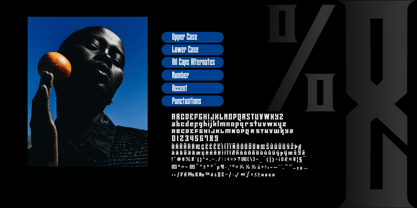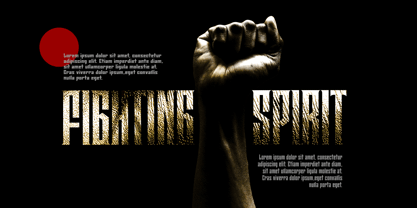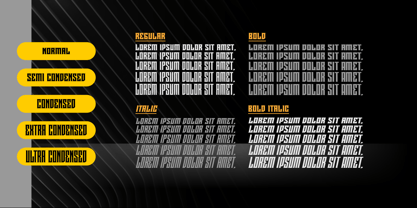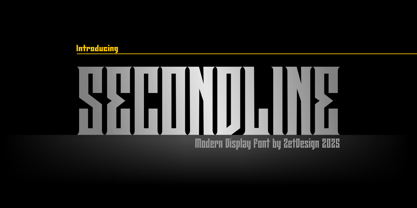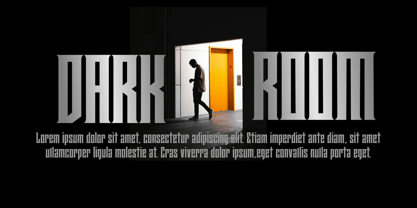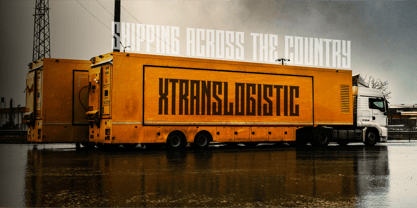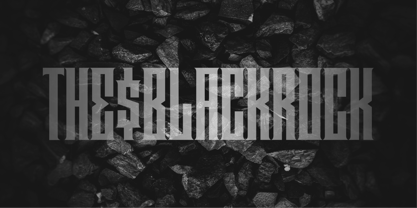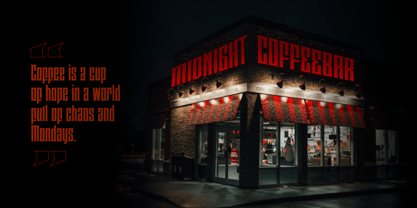
Secondline
von ZetDesign
Die Schriftfamilie Secondline wurde von Ahmad Zulfikar Ali entworfen und von ZetDesign veröffentlicht. Secondline enthält 20 Stile und Familienpaketoptionen.
Introducing Secondline — a bold, modern display font designed to captivate attention and deliver a strong, commanding visual presence. Created by ZetDesign in 2025, this typeface combines futuristic aesthetics with an industrial edge, making it a perfect choice for projects that require intensity and style.
With its tall, narrow letterforms and sharp, angular cuts, Secondline evokes a sense of strength, sophistication, and confidence. The font’s striking geometry and symmetrical shapes create an almost architectural feel, while subtle curves and pointed edges provide a dynamic contrast.
Secondline is meticulously designed for headlines, posters, logos, album covers, sports branding, tech-based designs, and futuristic themes. Its distinctive appearance makes every word stand out, leaving a lasting impression on viewers. Whether used in digital or print media, this font radiates boldness and energy, ensuring your message is not just seen, but remembered.
ZetDesign is an Indonesia-based type foundry operated and owned by Ahmad Zulfikar Ali. starting from an interest in art, Zulfikar has pursued several fields. painting, drawing, screen printing, to digital printing. His career as a designer began in 2014 when he became a designer at a printing and advertising company in his city. He has worked in this job until 2017 and has now succeeded in becoming a graphic design freelancer who focuses on writing and typography design.